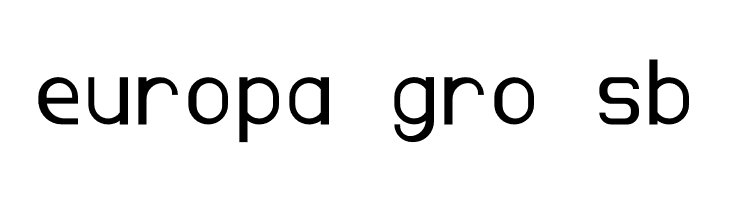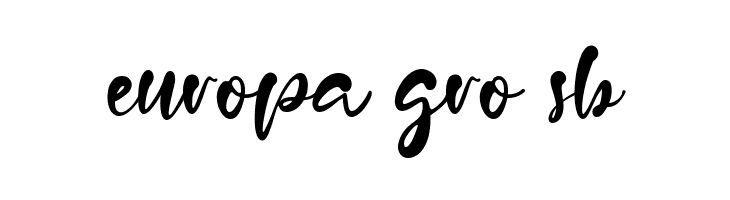
A bold, striking font with strong, thick strokes and slightly condensed letterforms.
A modern serif font with a semi-bold weight, ideal for impactful and versatile design projects.
A lively and expressive script font with flowing, cursive letterforms.
A bold, high-contrast serif font with elegant curves and strong presence.
A lively and expressive handwritten script font with bold, sweeping curves.
An elegant, flowing script font with high contrast and graceful curves.
A playful and elegant script font with smooth, flowing lines and connected letters.
A bold, brush-style font with dynamic and expressive characters.
A bold, geometric font with strong lines and a modern aesthetic.
A bold, vintage typewriter-style font with a distressed, handcrafted look.
A bold, textured, three-dimensional font with a playful, hand-drawn style.
A bold, rounded font with a playful and energetic style.
A bold, playful font with a modern and quirky style.
A bold, playful script font with a handwritten style.
A whimsical cartoon character font with each glyph as a unique illustration.
Cartoonish, character-based display font with comic-style illustrations.
A bold, industrial-style font with a blocky, three-dimensional appearance.
A bold, three-dimensional font with a strong, impactful presence and shadow effect.
A playful, bold, hand-drawn font with a whimsical and informal style.
A playful, bold font with rounded, thick strokes and a whimsical style.
Bold, italicized font with a three-dimensional, geometric style.
A bold, industrial font with a textured, three-dimensional appearance.
A bold, playful font with thick outlines and a modern blocky style.
A bold, playful outline font with a modern yet retro aesthetic.
A bold, playful font with rounded edges and a hand-drawn feel.
A modern, geometric font with rounded edges and a sleek design.
A bold, flowing script font with high contrast and artistic flair.
A bold, high-contrast font with geometric shapes and a modern, edgy style.
A bold, high-contrast font with wide, striking characters.
A bold, italicized font with high contrast and a modern, dynamic style.
Bold, italicized font with a modern and dynamic style.
A bold, playful, and hand-drawn font with a distressed look.
A bold, playful font with a unique cut-out effect and rounded edges.
A playful, distressed font with a vintage, whimsical style.